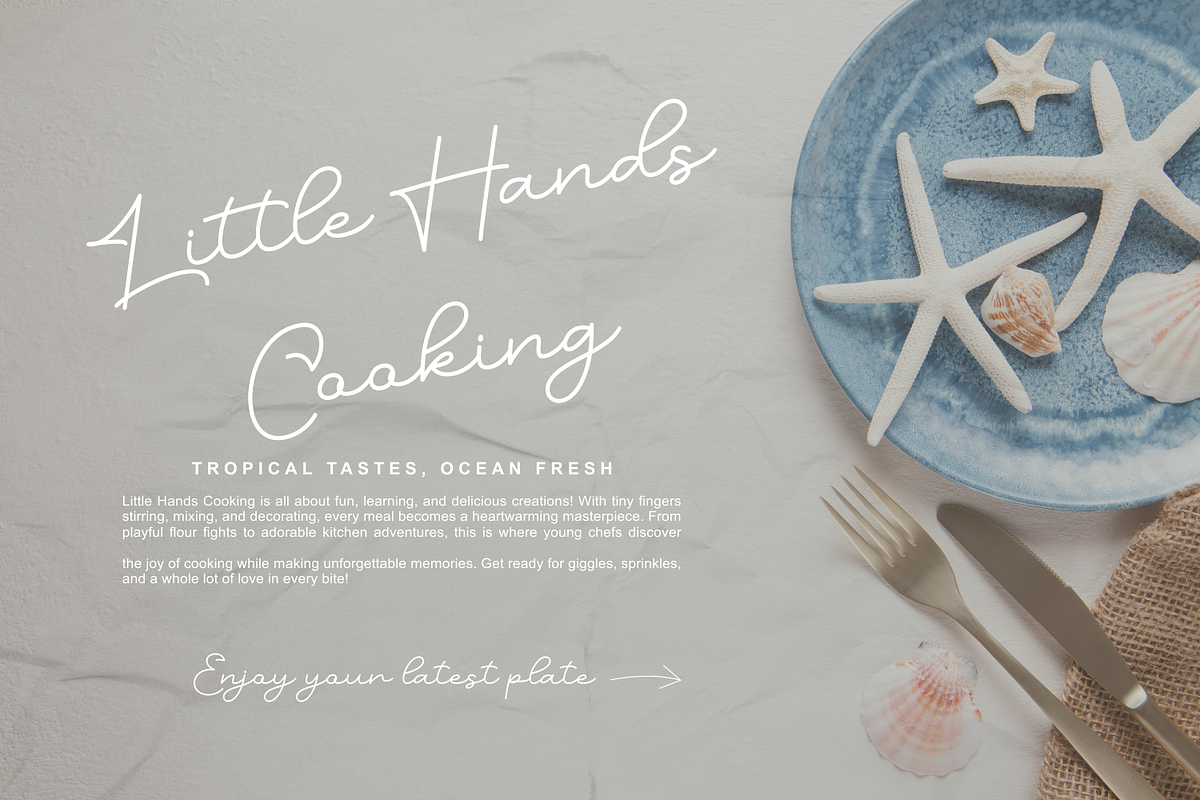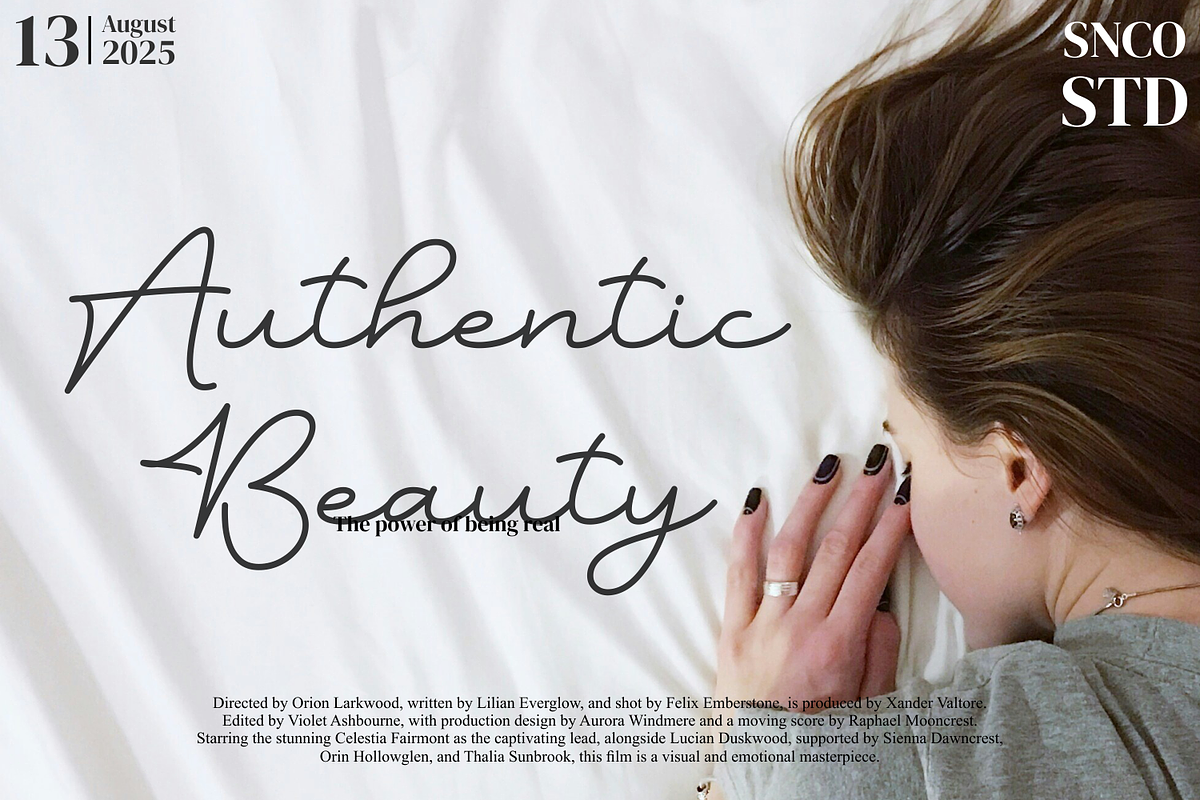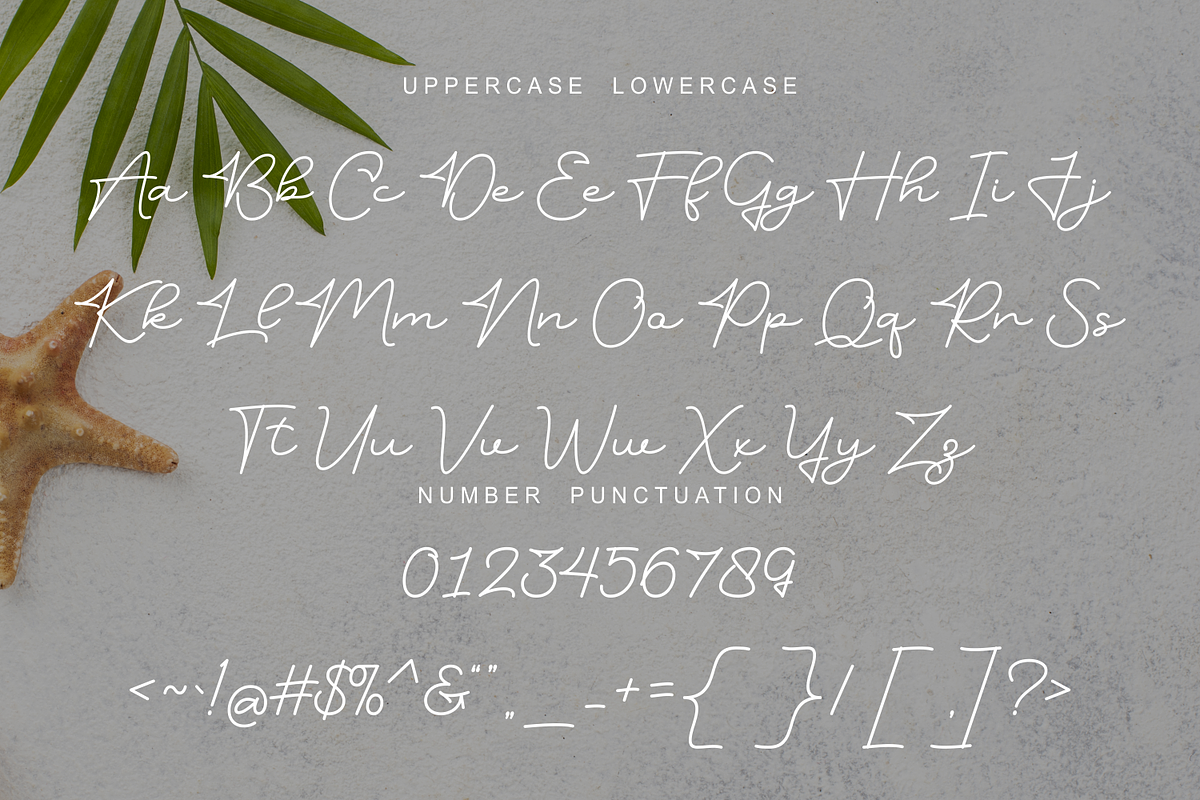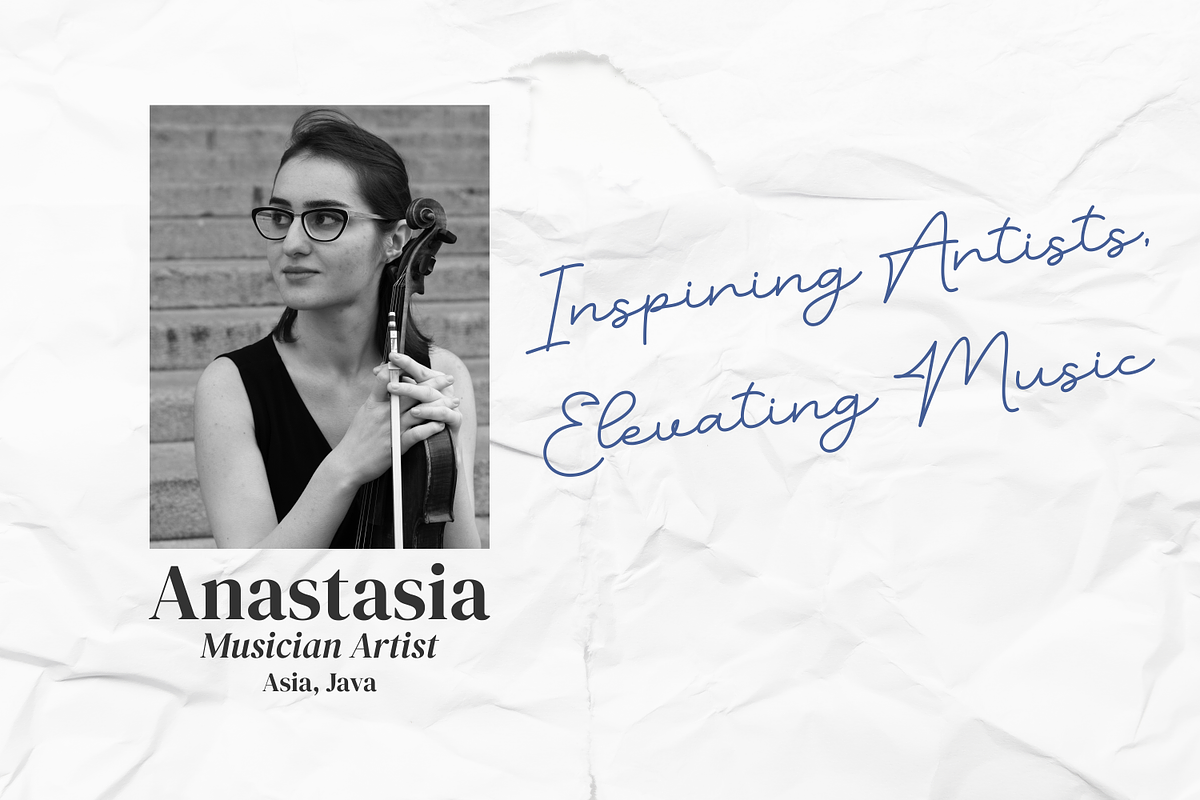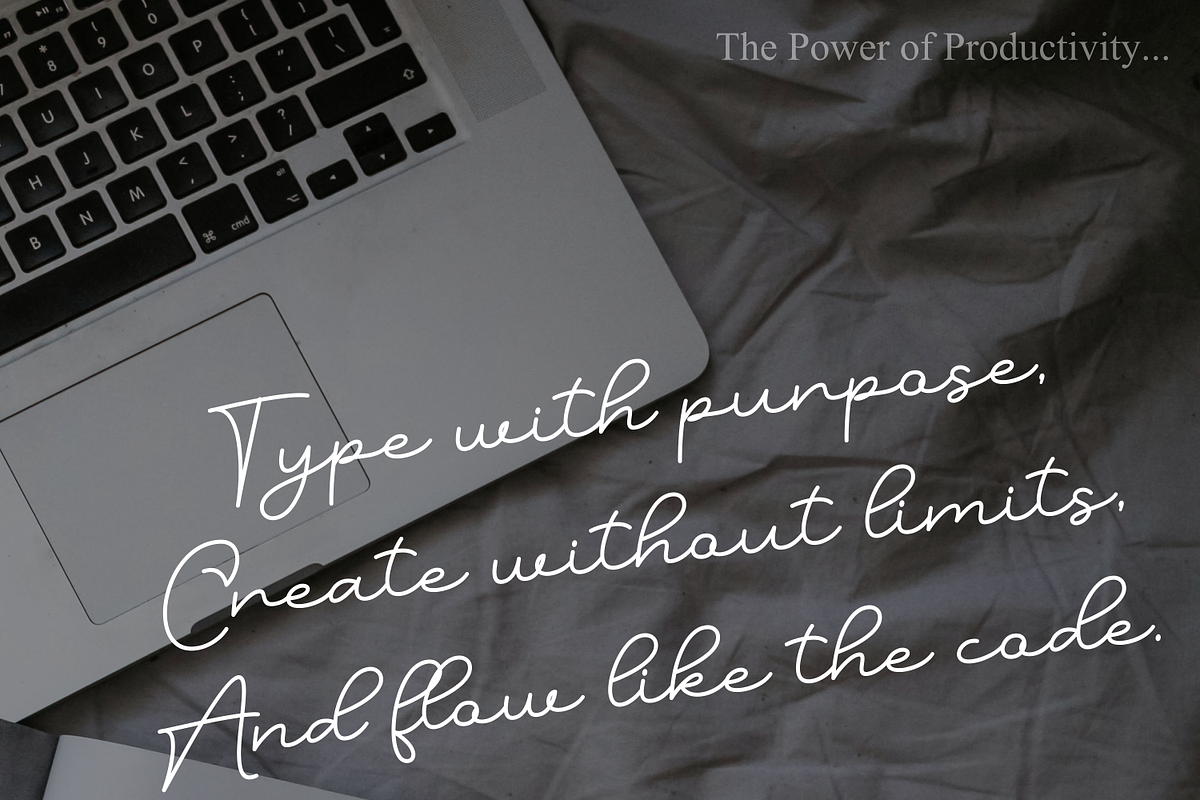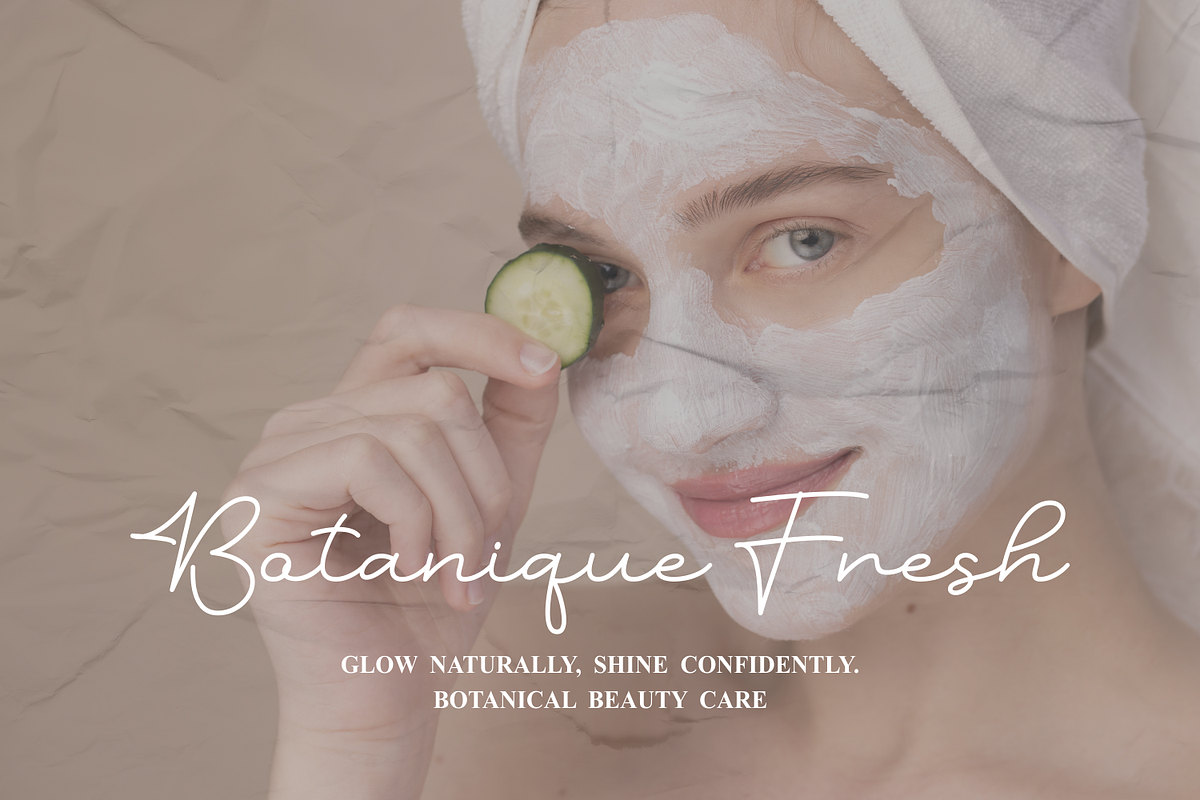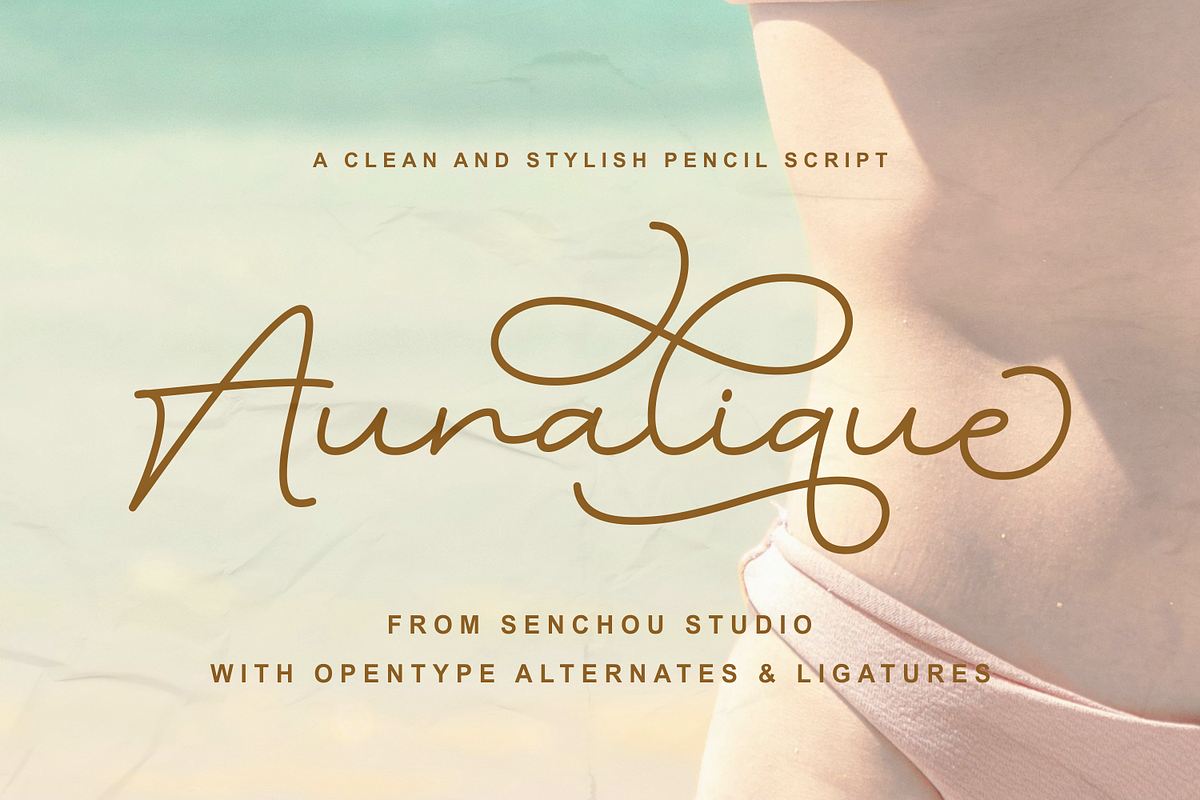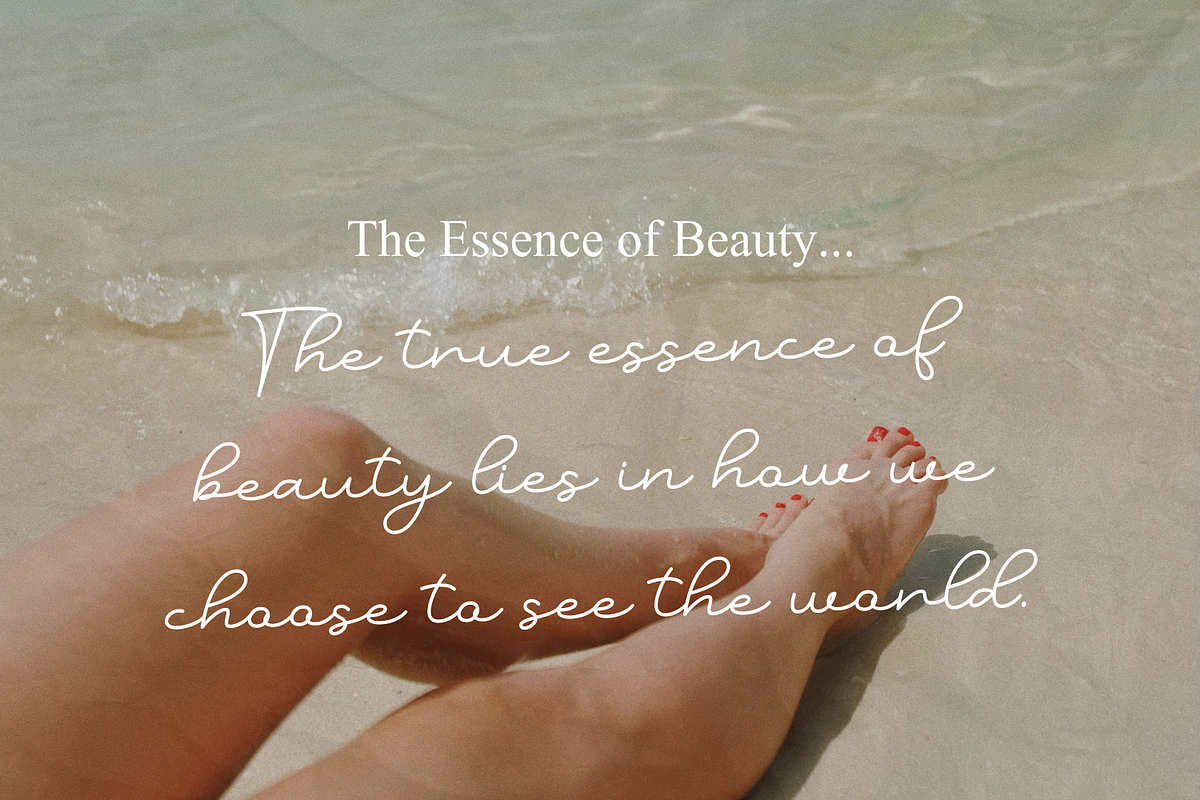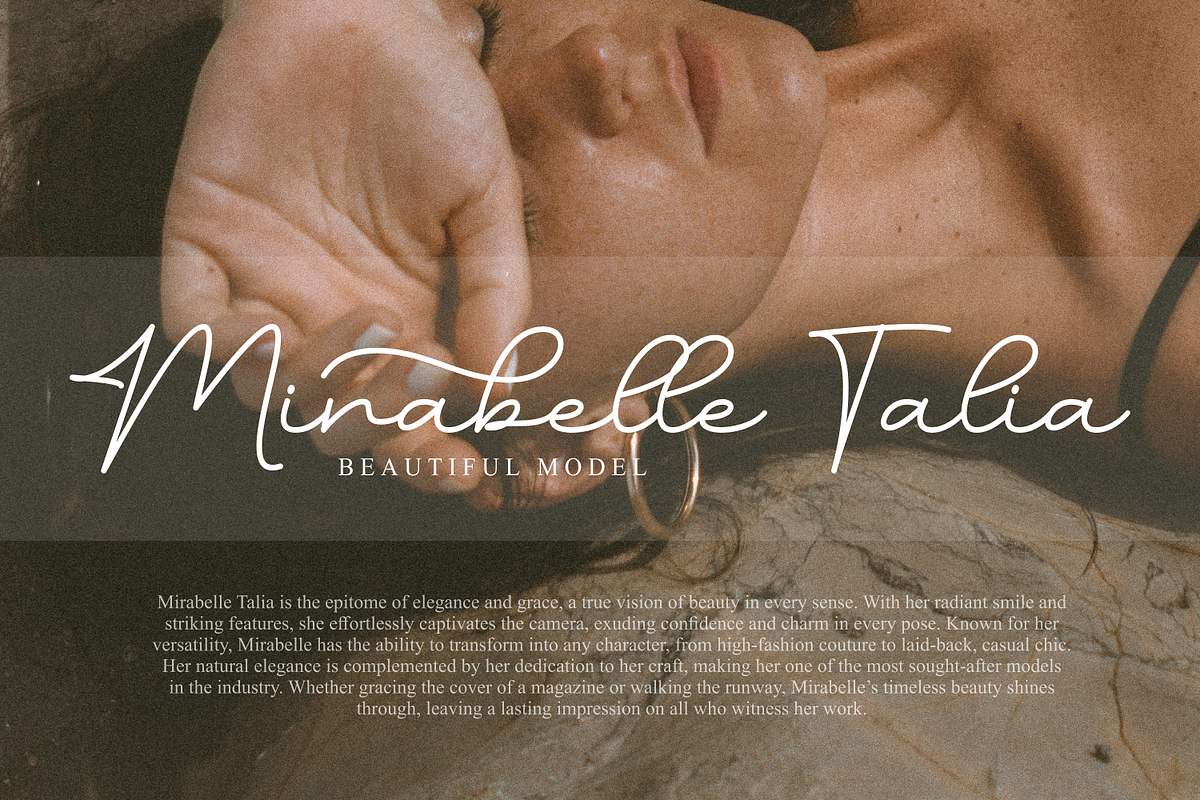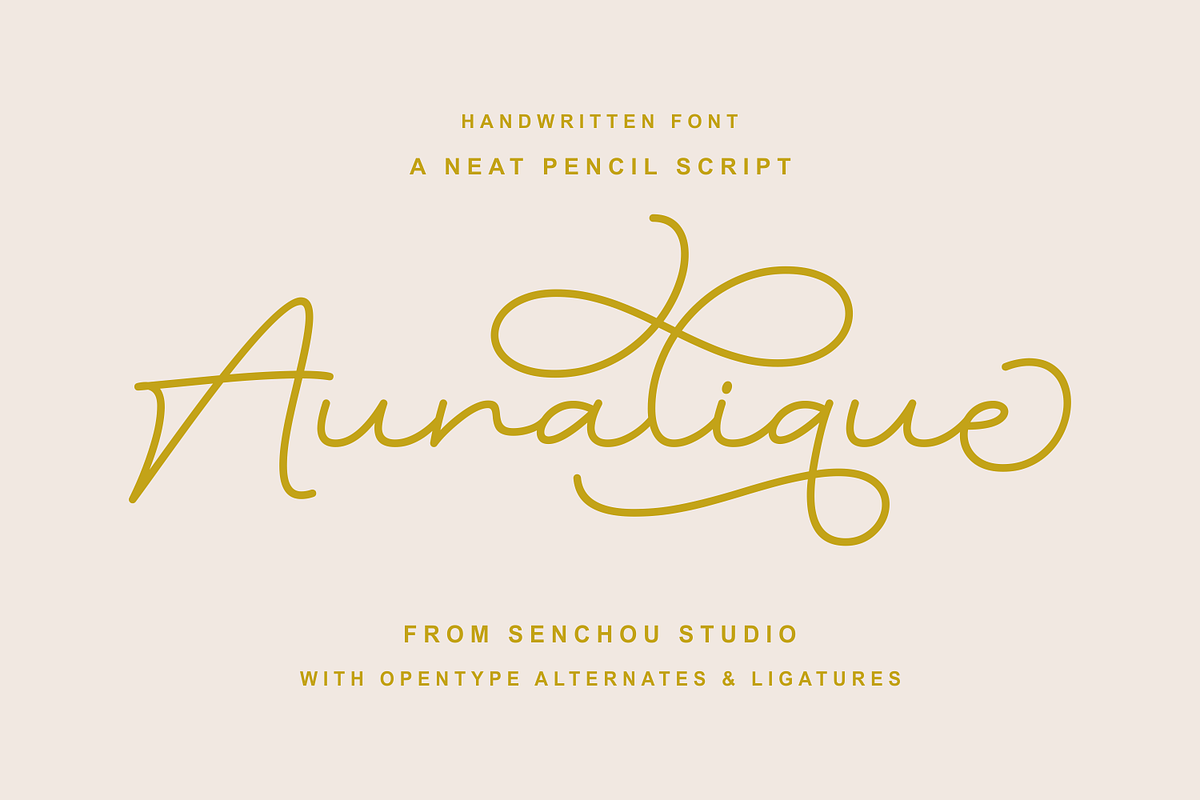
Auralique
Auralique is a clean and modern pencil script signature font, perfect for adding a touch of elegance and authenticity to your designs. With its smooth, flowing strokes and natural handwritten feel, this font is ideal for branding, logos, invitations, and stylish typography. Auralique combines sophistication with simplicity, making it a versatile choice for both professional and creative projects.